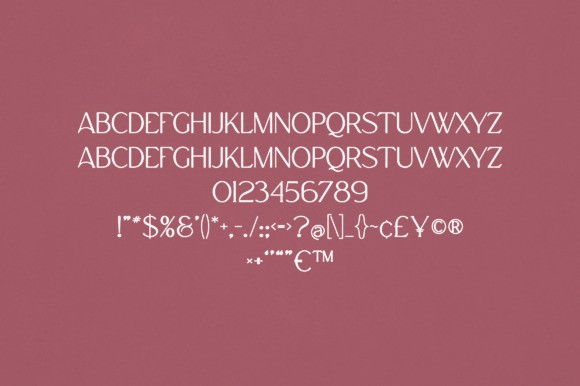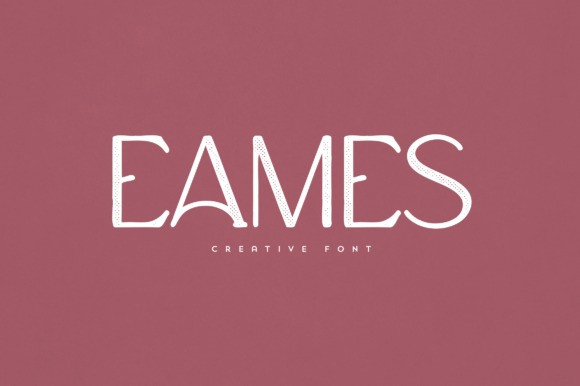
Eames Font
Eames Font is an elegant and versatile font that will make your typography truly unique! It will enchant every logo, branding, headline, or plain text!